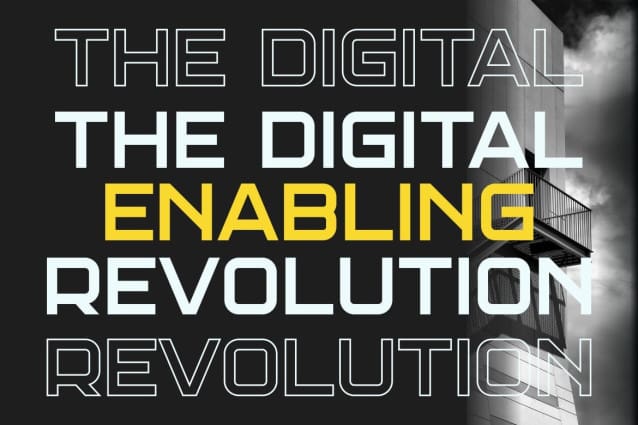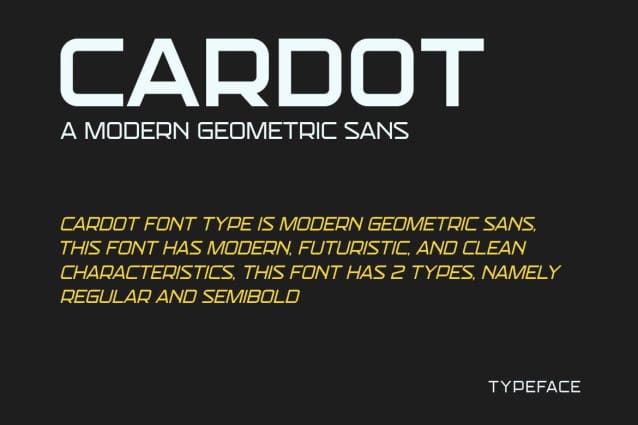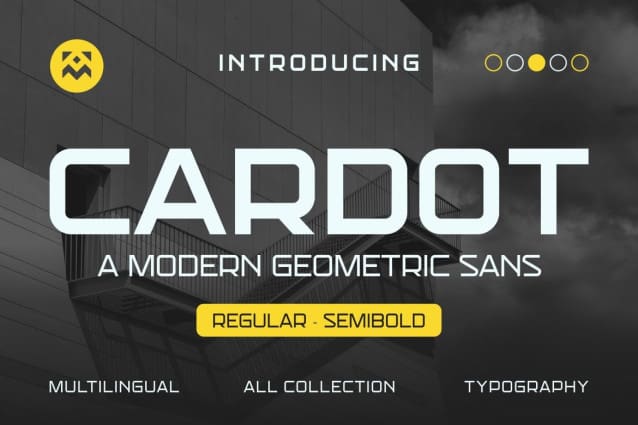
Cardot Font
Cardot Font – Modern Font is a bold and authentic display font. The font is suitable for any branding project such as logo, template design, product and many more. It is exceptional in a wide range of contexts